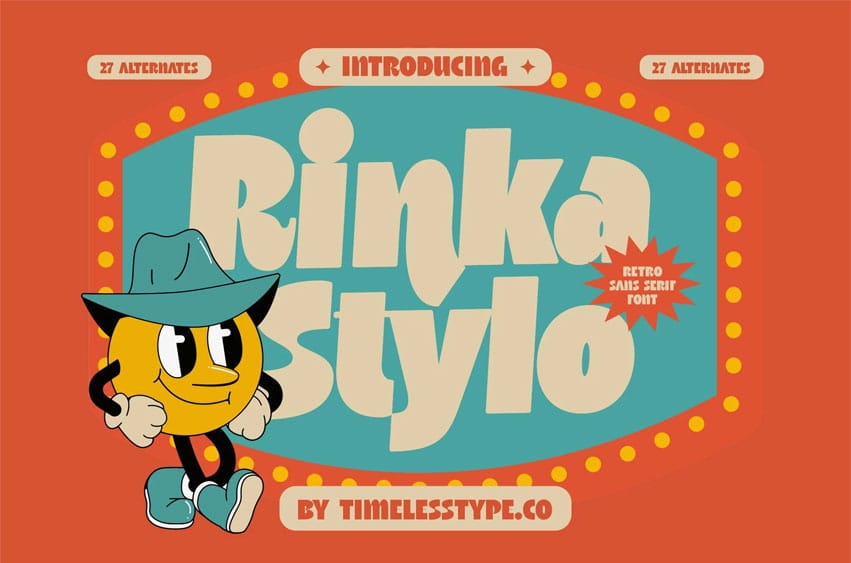
Rinka Stylo Font
Rinka Stylo Font is a bold retro sans serif font bursting with playful character, chunky shapes, and vintage cartoon energy. Inspired by mid-century signage, comic posters, and old-school advertising, this typeface delivers a fun, nostalgic, and eye-catching aesthetic perfect for children’s branding, poster design, merchandise, packaging, and quirky logo work. Its thick strokes and soft edges make every composition feel lively, warm, and full of personality.
With 27 alternates, Rinka Stylo gives designers creative flexibility to craft expressive headlines, vibrant retro layouts, and memorable display typography. Whether you’re making playful social media graphics, retro brand identities, or fun cartoon visuals, this font brings authentic vintage charm and joyful style to your designs.
• Ligature
• Uppercase and lowercase
• Numbering and Punctuation